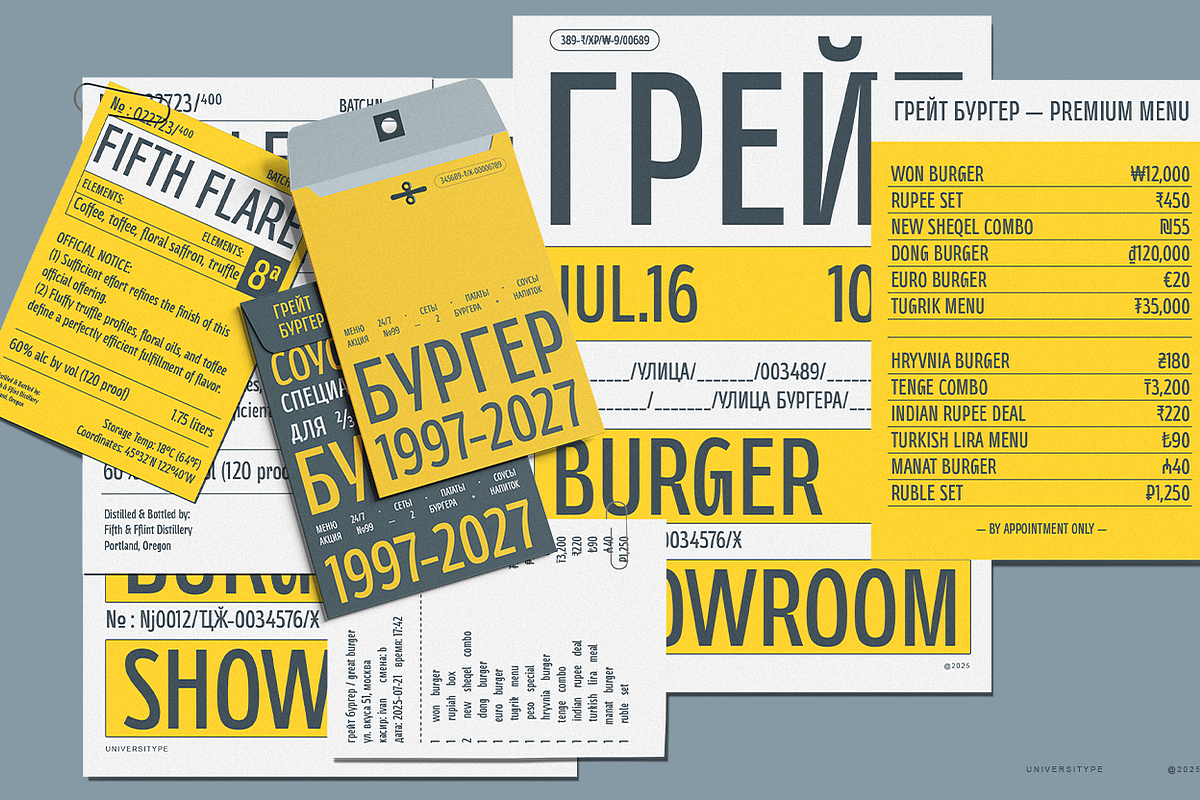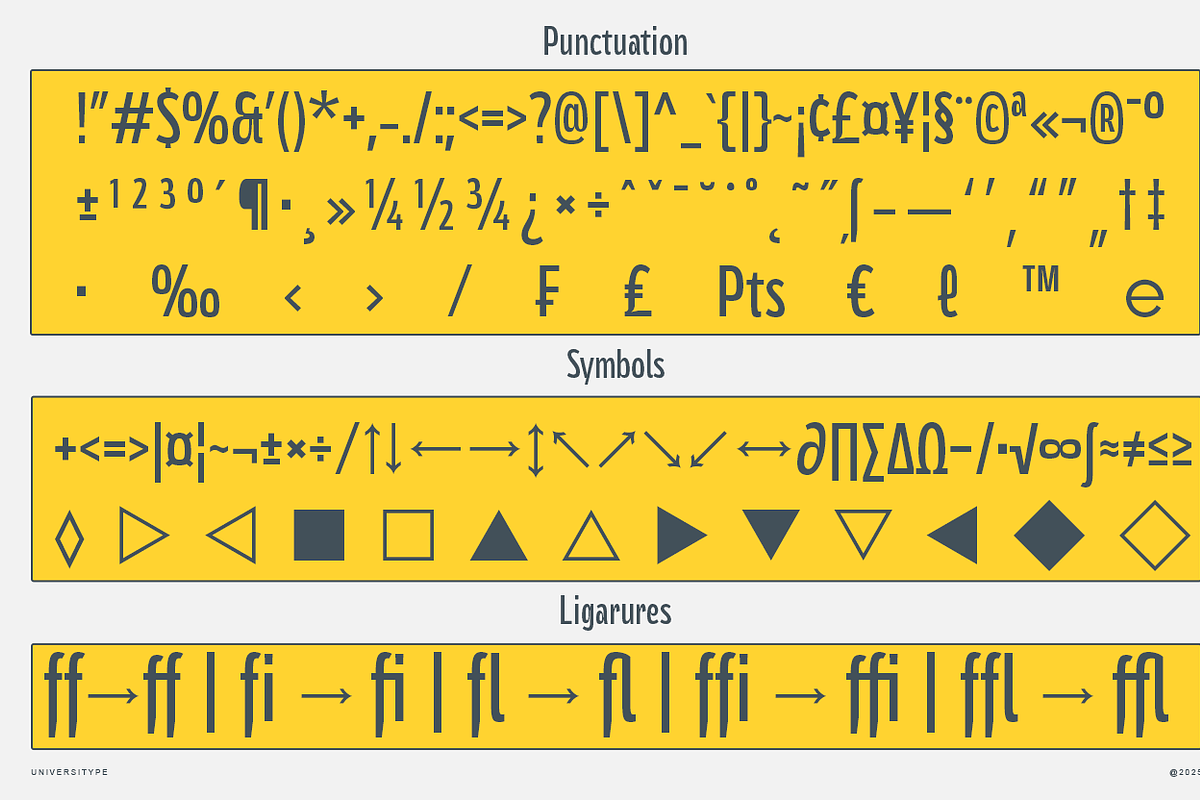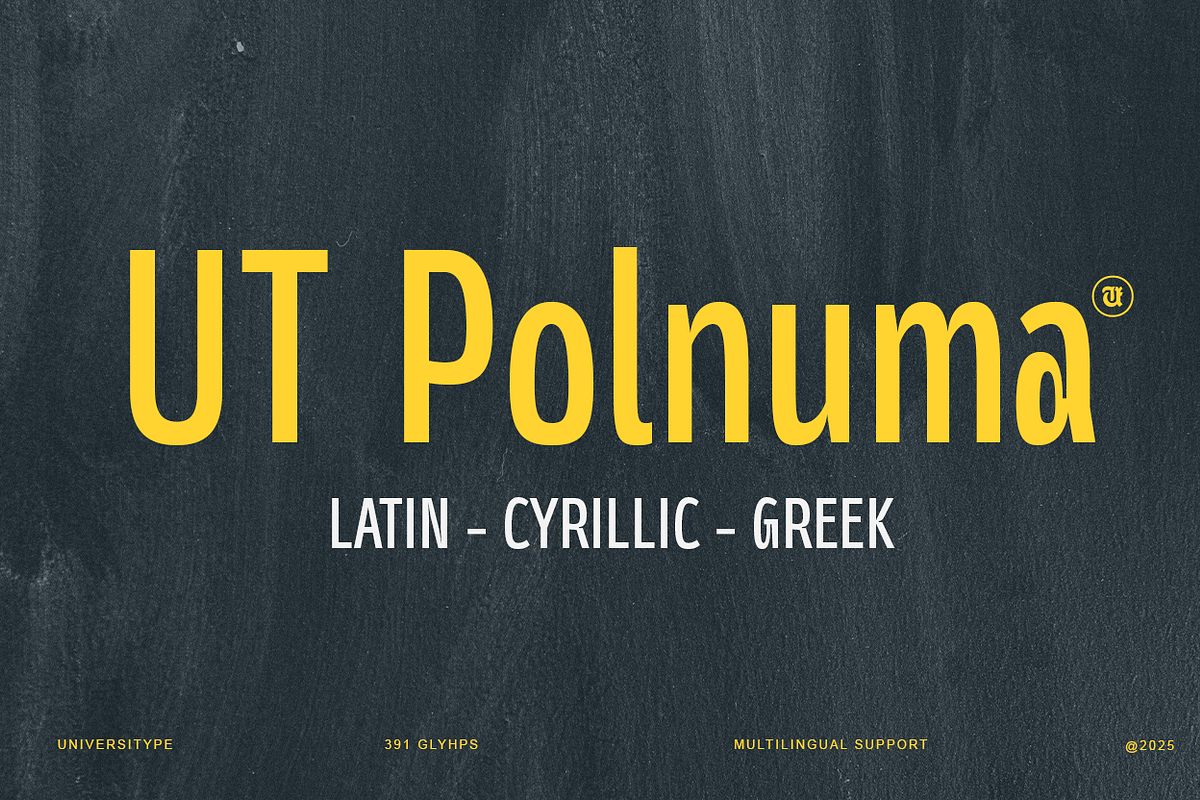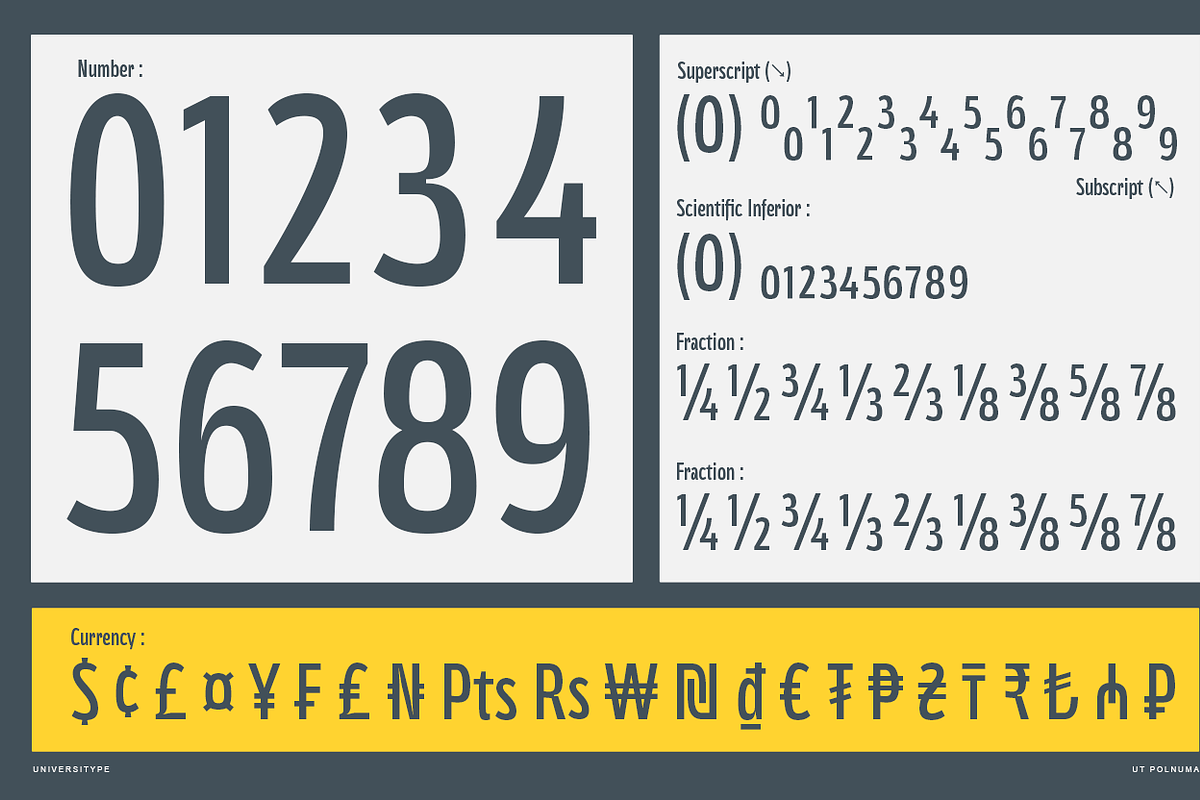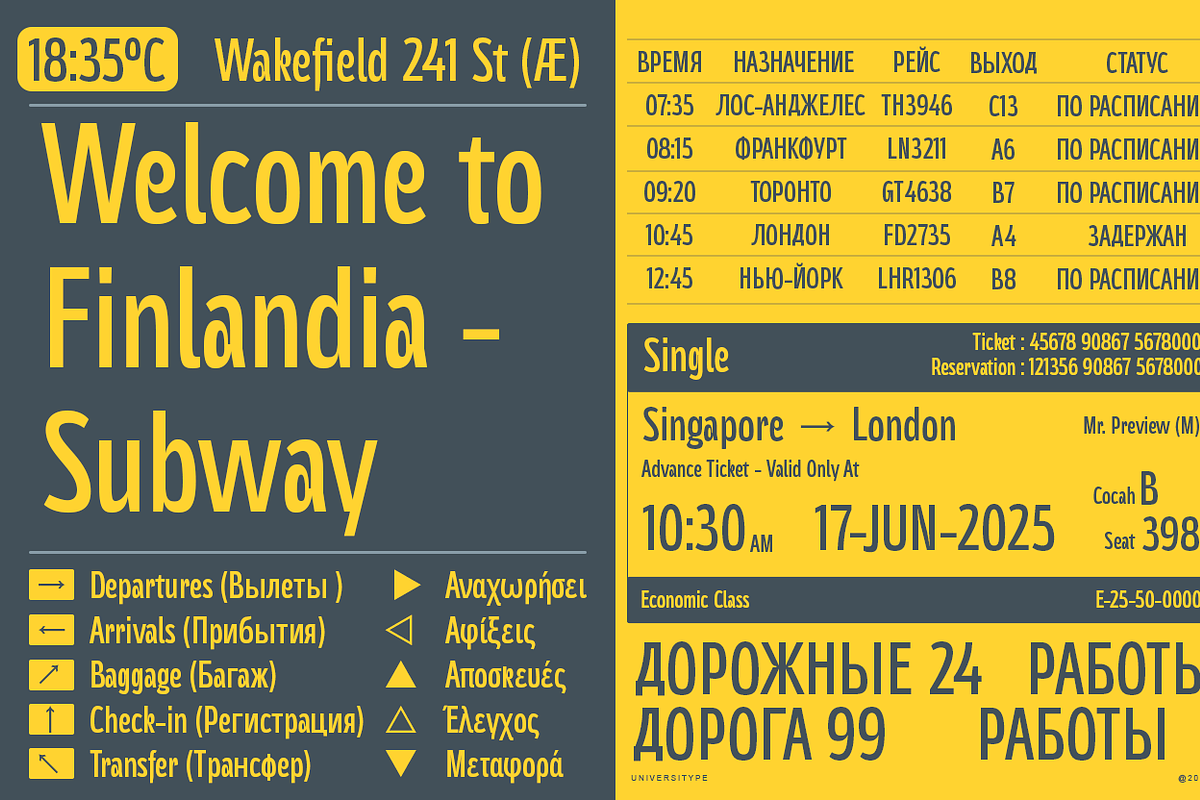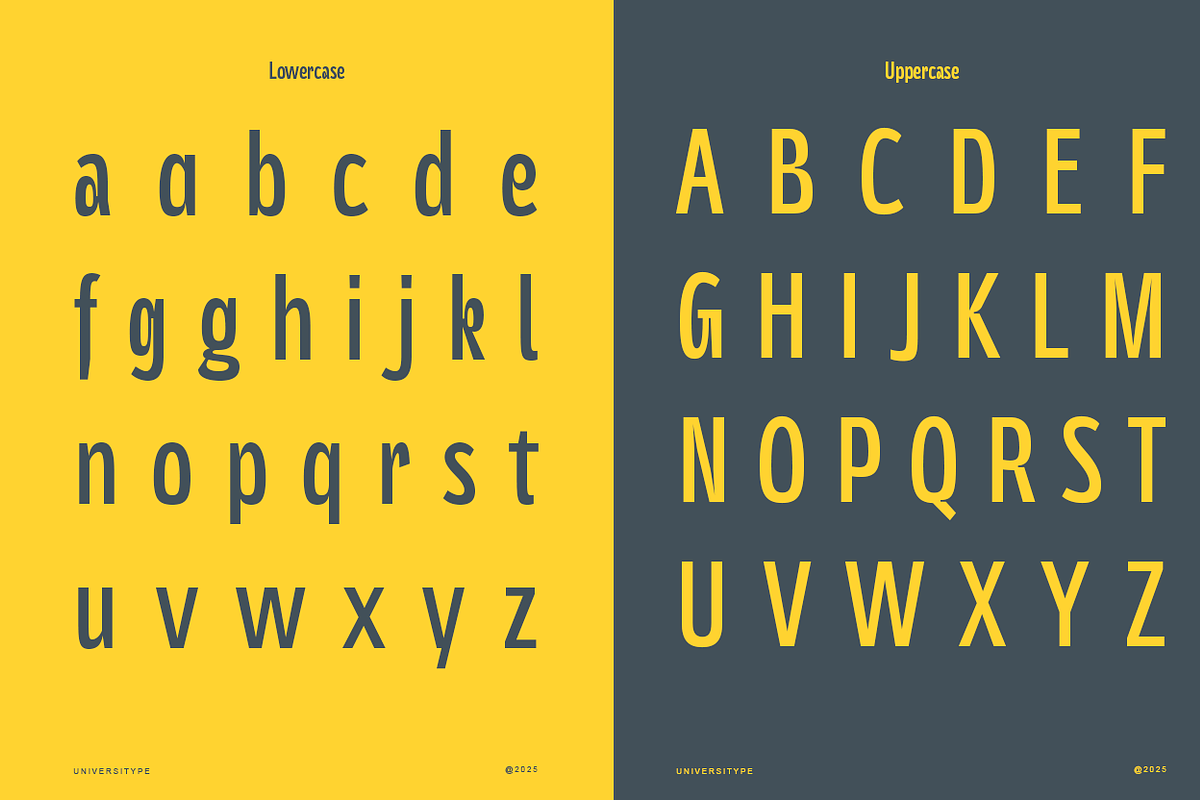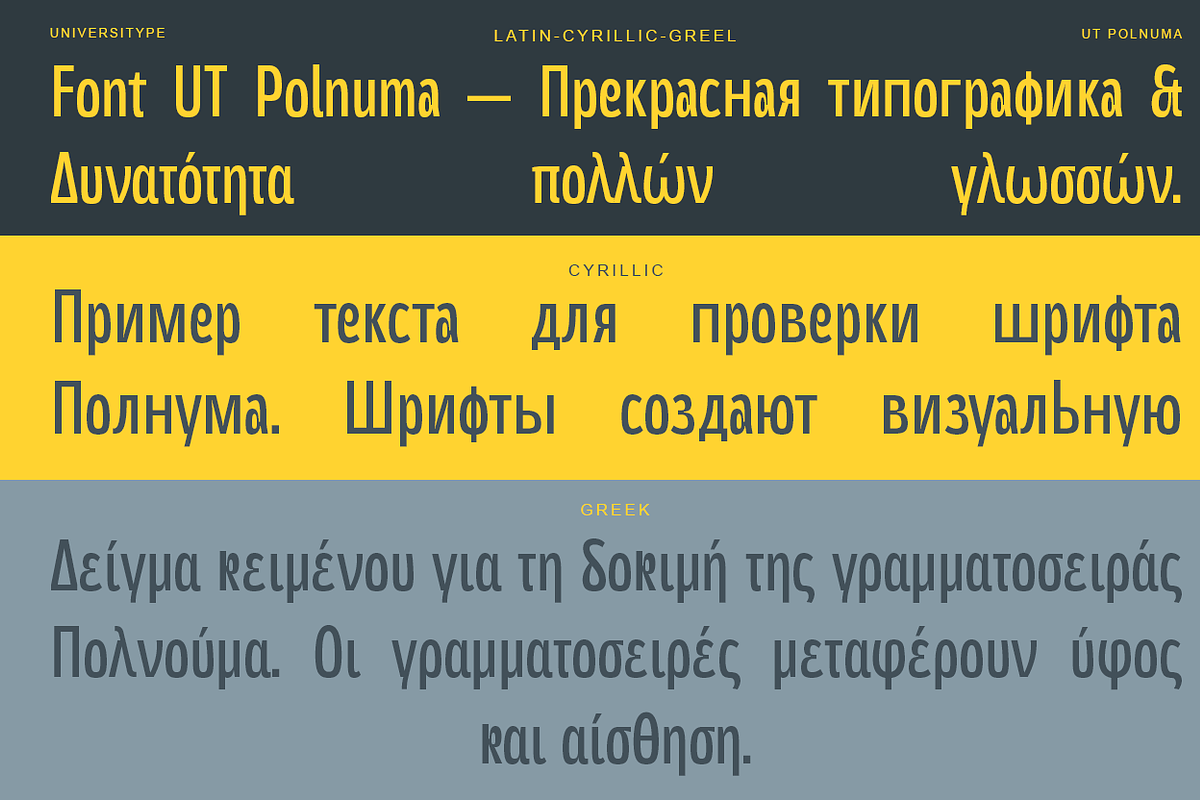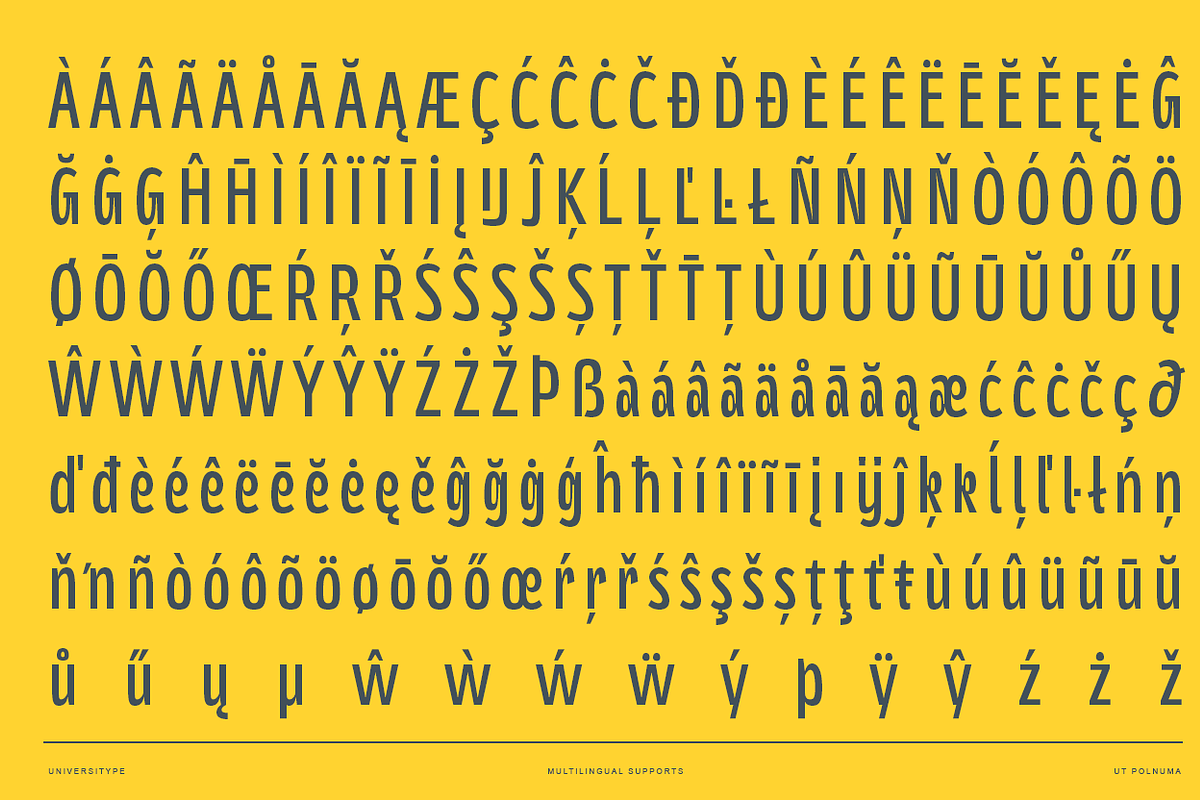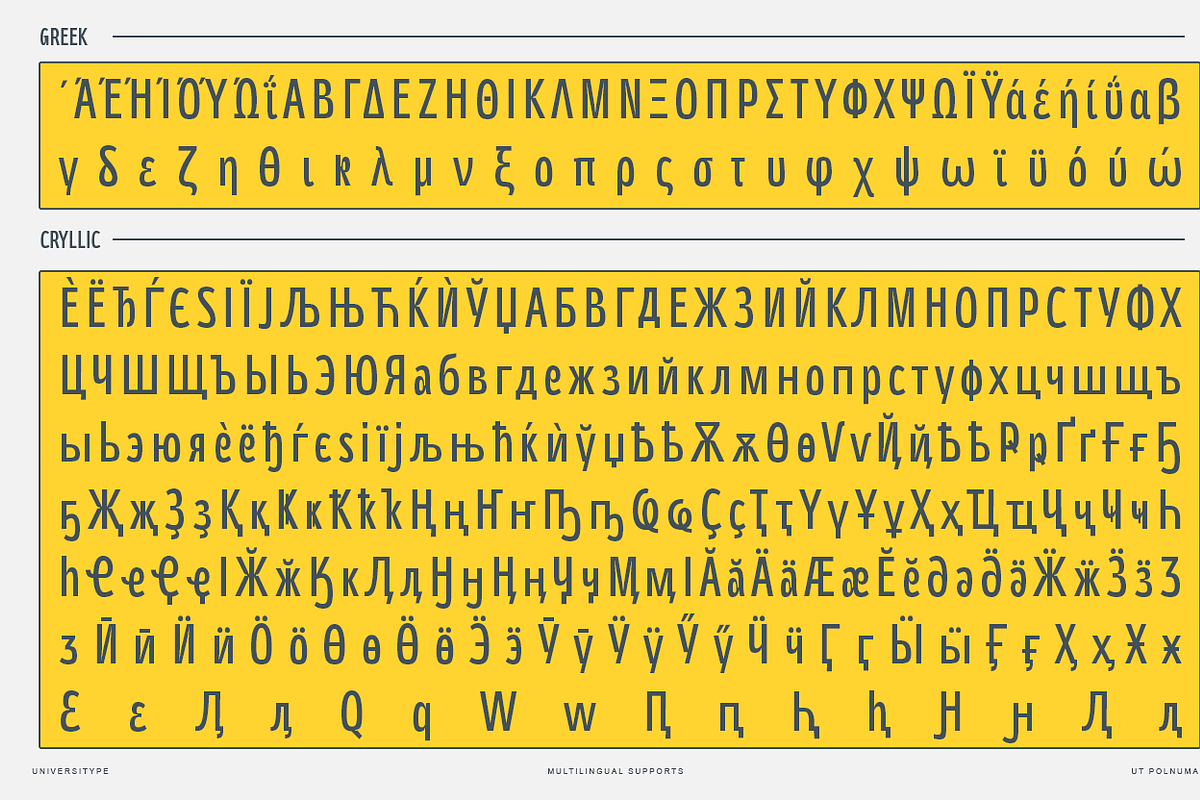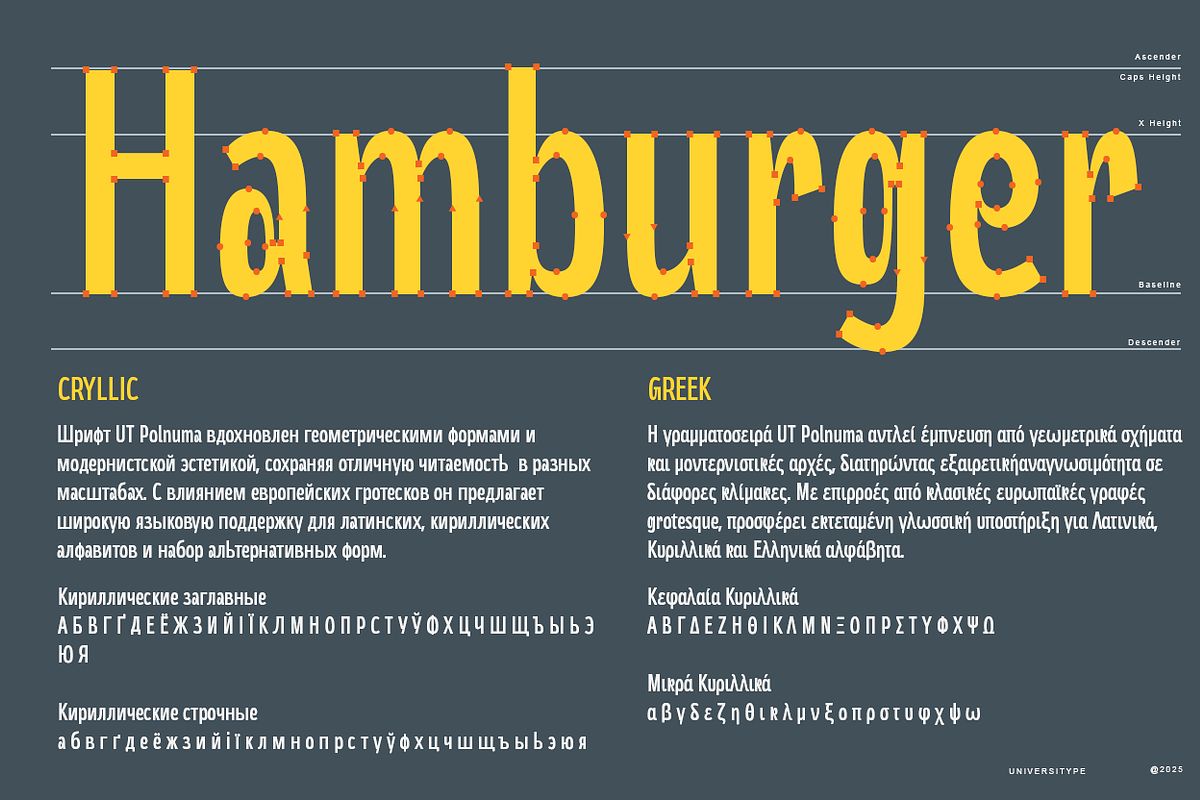
UT Polnuma - A Modern Sans Serif
Introducing UT Polnuma, a versatile and modern sans-serif typeface from Universitype. Designed with a focus on readability and legibility, UT Polnuma is perfect for both digital and print media. Its clean lines and geometric shapes make it suitable for a wide range of applications, from branding and advertising to editorial design and web typography.
UT Polnuma is ideal for graphic designers, typographers, and creative professionals who are looking for a contemporary font that can be used across multiple platforms and languages. Its multilingual support makes it particularly appealing to those working in global markets.
- Multilingual Support: Includes Latin, Cyrillic, and Greek alphabets, making it suitable for diverse linguistic needs.
- Complete Character Set: Offers a full range of numerals, punctuation marks, fractions, scientific inferiors/superiors, and currency symbols.
- Versatile Weights: Available in various weights to suit different design requirements.
- Ligatures and Special Characters: Enhances text aesthetics and readability with additional ligature options.
- High Legibility: Designed with open counters and clear differentiation between similar letterforms.
Inspiration Behind the Design:
UT Polnuma draws inspiration from modern geometric typefaces, aiming to strike a balance between classic simplicity and contemporary design trends. The "unfinished" design approach adds a dynamic and creative touch, making it appealing for modern branding and editorial projects.
- Branding and Identity: Use UT Polnuma for logos, branding materials, and corporate documents to convey a modern and professional image.
- Editorial Design: Ideal for magazines, newspapers, and online publications where readability and style are crucial.
- Web Typography: Perfect for websites and web applications, offering a clean and modern look that enhances user experience.
- Advertising and Promotional Materials: Use it in advertisements, posters, and brochures to grab attention and convey messages effectively.
- Features: Multilingual support, complete character set, ligatures, variable weights, high legibility
UT Polnuma is more than just a font; it's a design tool that enhances your creative projects with its modern aesthetic and functional versatility. Whether you're working on a global brand campaign or a local editorial piece, UT Polnuma is ready to deliver results.